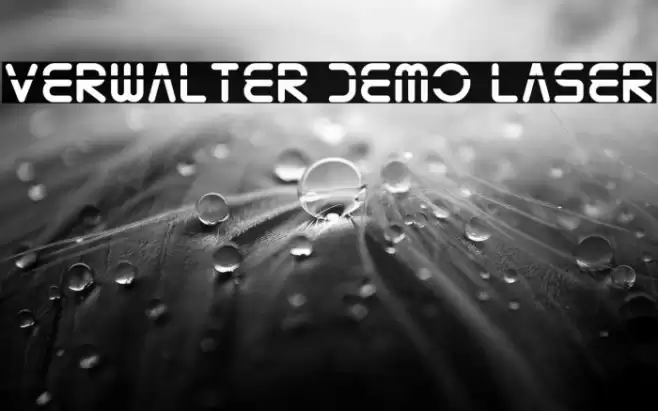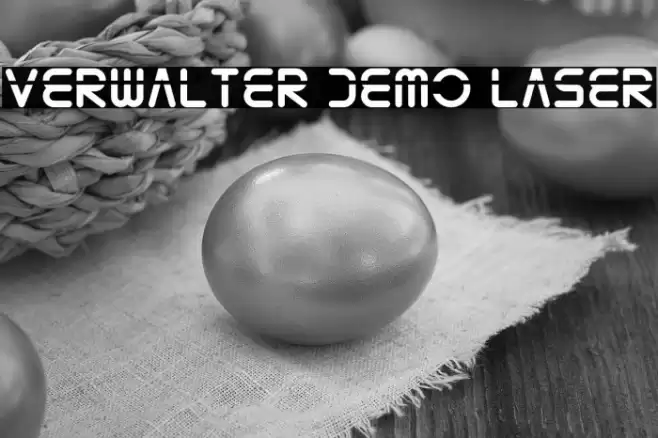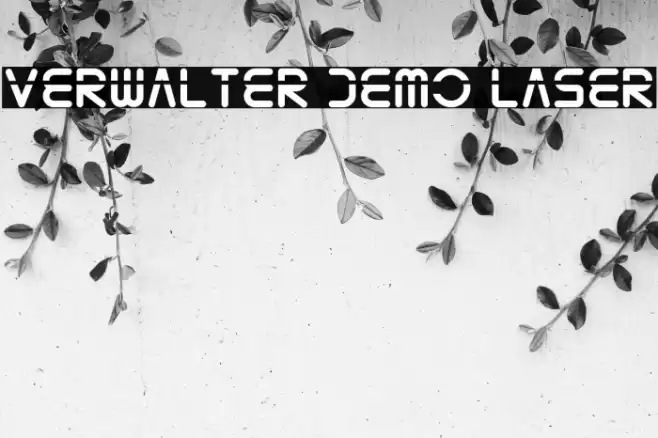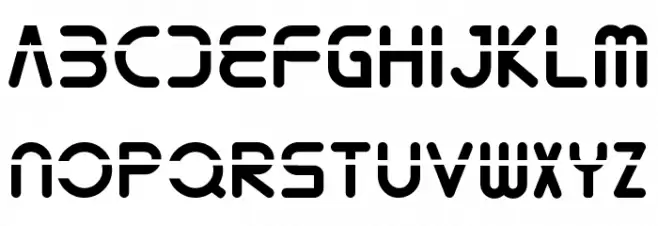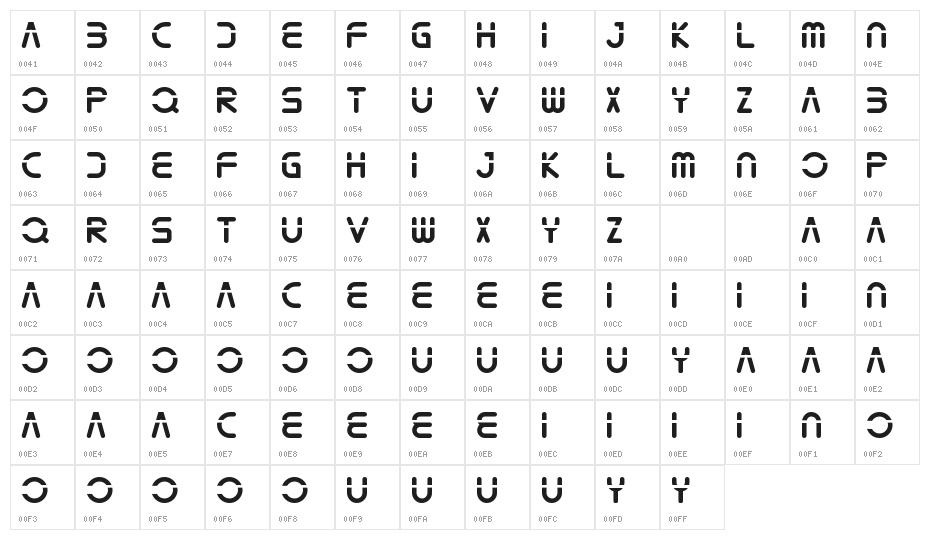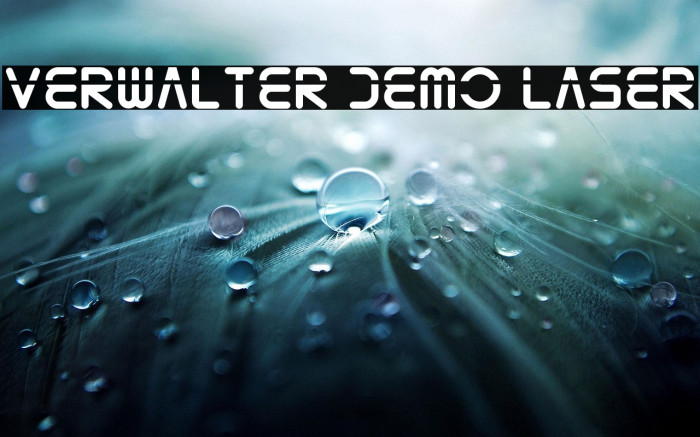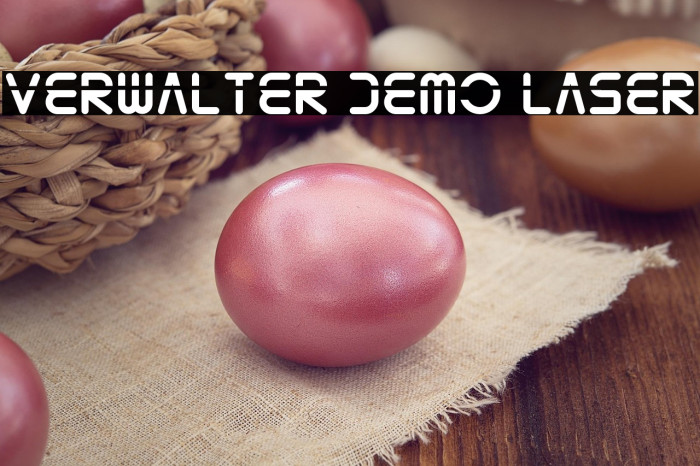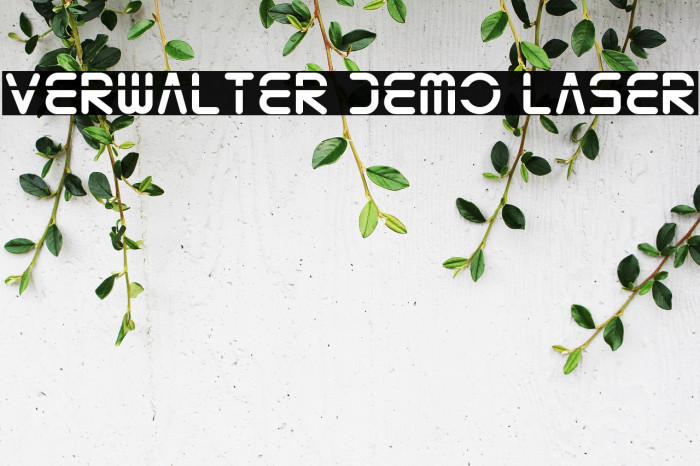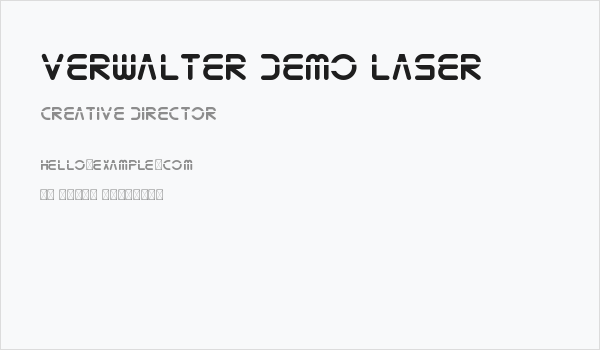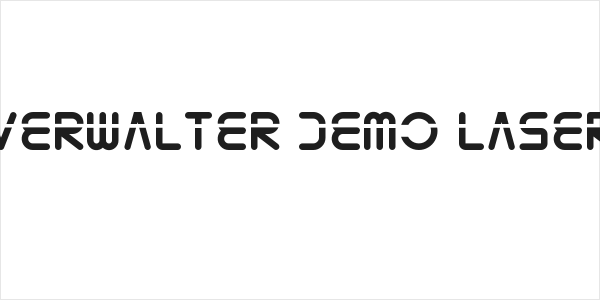
Verwalter Demo Laser Font
Verwalter Demo Laser Description
This font features a futuristic and geometric design, characterized by its bold and rounded letterforms. The strokes are consistent in thickness, creating a uniform appearance that is both modern and sleek. The characters are constructed with a combination of straight lines and smooth curves, giving them a distinctive, almost digital look. The font's style is reminiscent of technology and innovation, making it suitable for projects that require a contemporary and cutting-edge aesthetic. The spacing between characters is tight, enhancing its compact and efficient appearance. Overall, this font exudes a sense of modernity and precision, ideal for use in tech-related designs or branding.
A futuristic, geometric font with bold, rounded letterforms and a modern aesthetic from Regular fonts.
- Proposed Projects: Ideal for technology branding, digital interfaces, futuristic posters, and innovative product packaging.
- Character Spacing: Tight
- Use Case: Logos, Headlines, Tech Branding